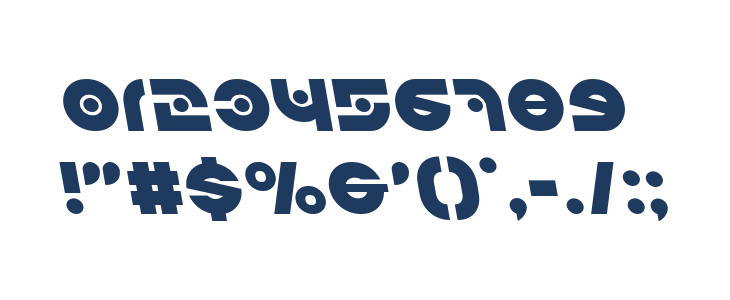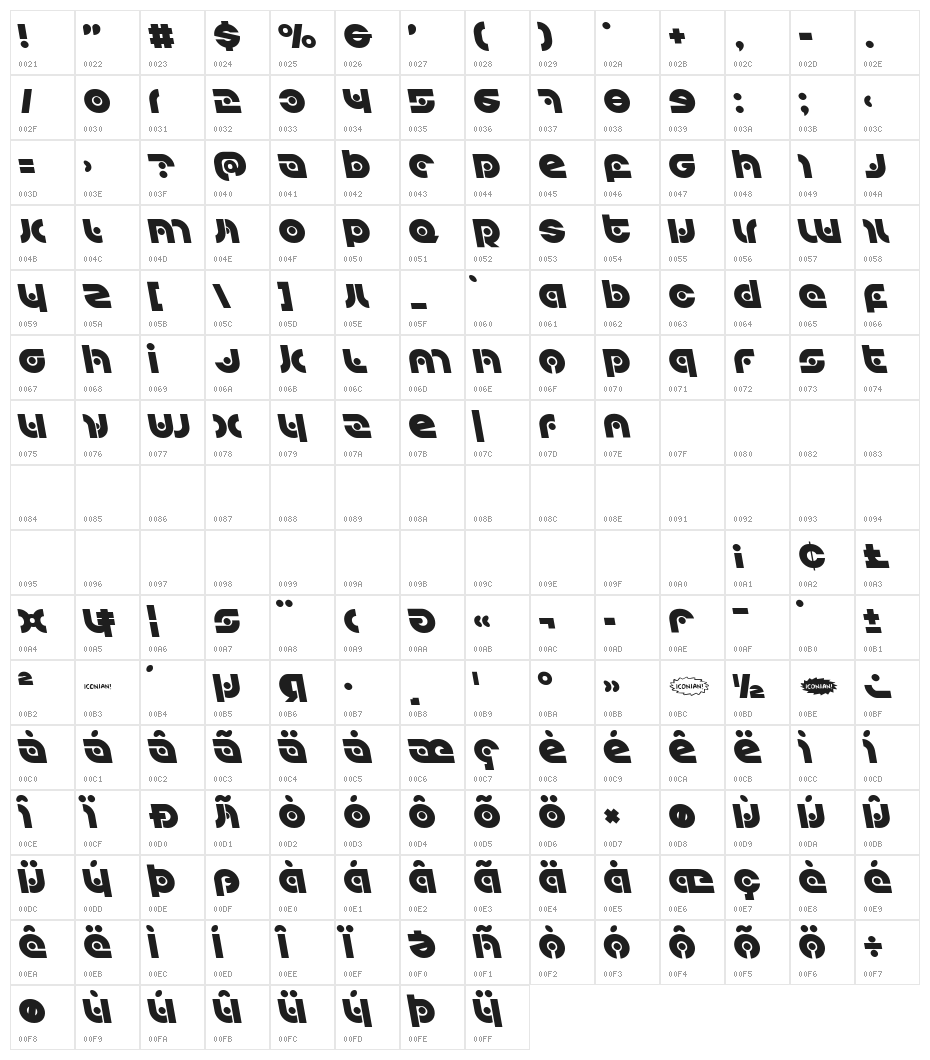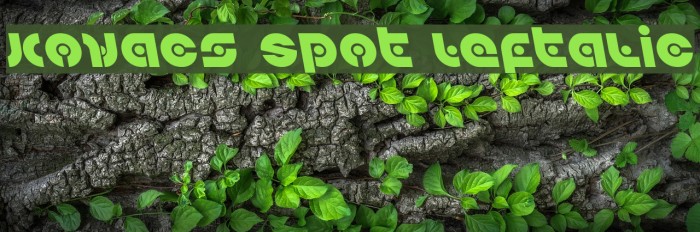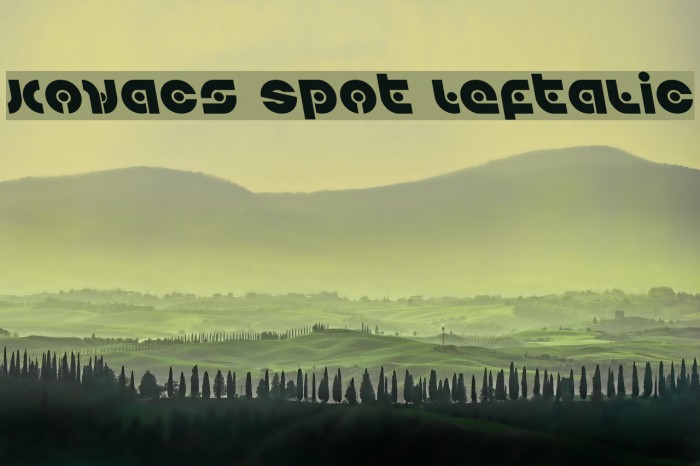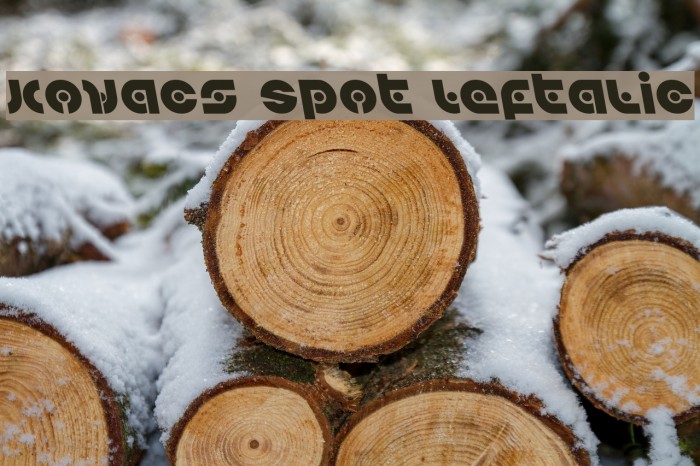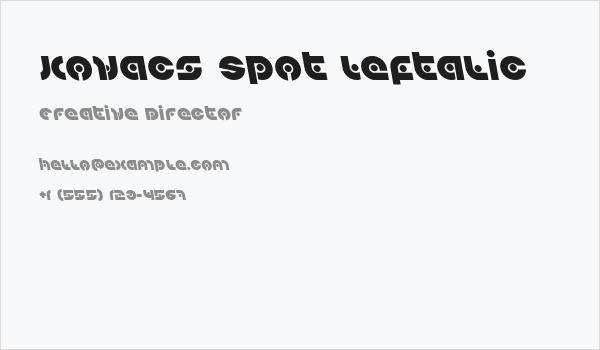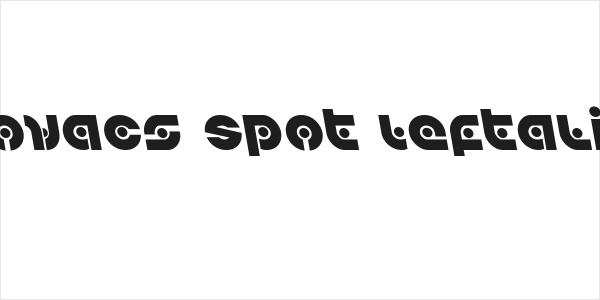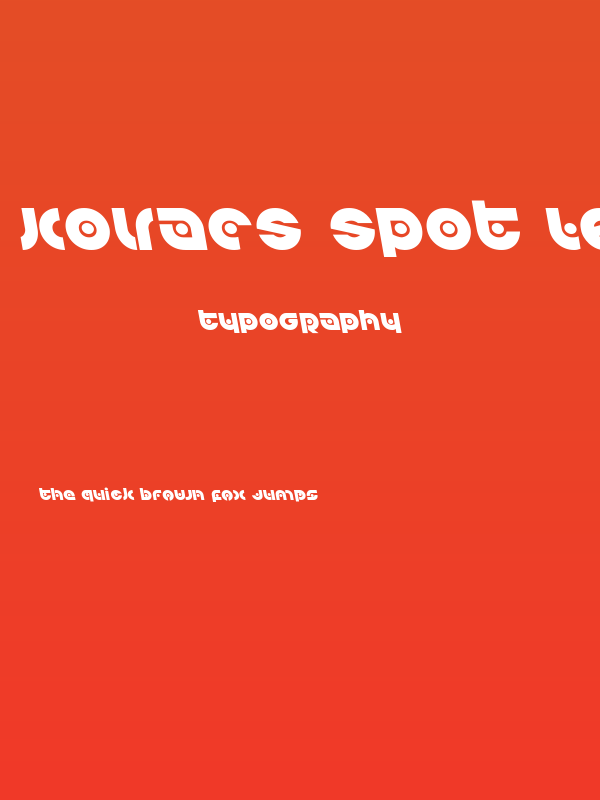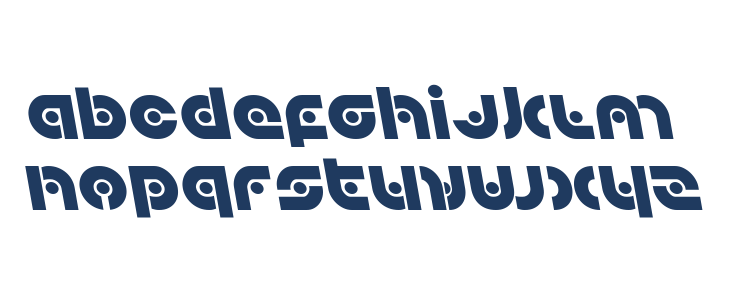
Kovacs Spot Leftalic Font
Kovacs Spot Leftalic Description
This font features a bold, geometric design with a futuristic flair. Each character is crafted with a unique blend of curves and straight lines, creating a sense of movement and energy. The letters are slightly slanted, enhancing the dynamic appearance. The font's thick strokes and high contrast make it highly legible, even at smaller sizes. Its distinct style is both modern and playful, making it suitable for creative projects that require a standout typeface.
| Proposed Projects | Ideal for branding, posters, album covers, and any project needing a modern, eye-catching typeface. |